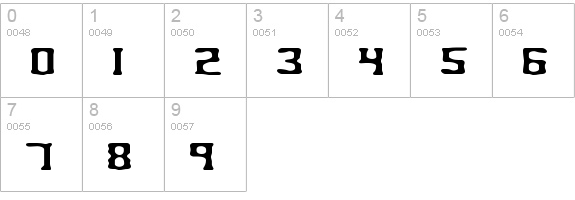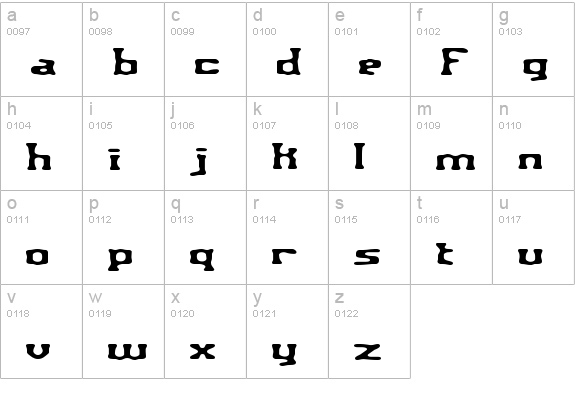
Aspartame BRK Font Details
Aspartame BRK font is a modern and stylish typeface that exudes sophistication and elegance. With its sleek lines and contemporary design, this font is perfect for adding a touch of class to any project. The Aspartame BRK font is versatile and can be used for a variety of design purposes, from branding to editorial design. What sets the Aspartame BRK font apart is that it is completely free to download at FontsMarket.com. This means that you can access this high-quality font without any cost, making it a valuable addition to your font library. Don't miss out on the opportunity to enhance your designs with the Aspartame BRK font today!